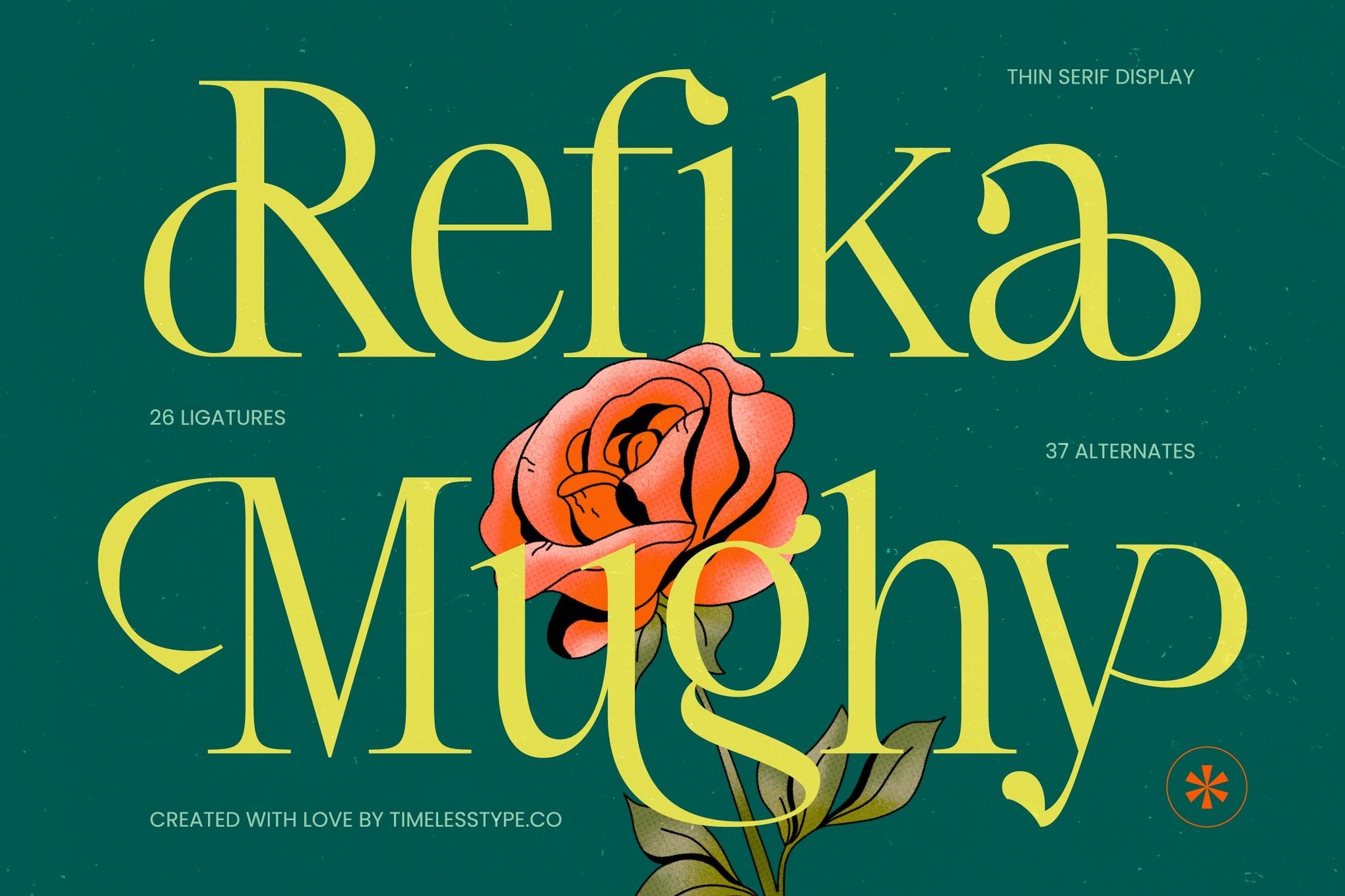
Refika Mughy – Elegant Serif Font
Refika Mughy – Elegant Serif Font brings a balanced structure and contemporary look, making it suitable for both digital and print design. Refika Mughy – Thin Serif Display adapts perfectly to the global market, offering exceptional flexibility for international projects. This rich character set ensures your brand tone remains consistent and strong, regardless of language requirements, providing technical reliability for global communication.
Master the art of luxury branding by applying this typeface to your most prestigious design projects. Refika Mughy – Thin Serif Display is perfect for high-end packaging, editorial design, fashion magazines, and premium logo design. Whether used in digital media or print materials, it transforms ordinary text into a statement of luxury, ensuring your brand stands out.